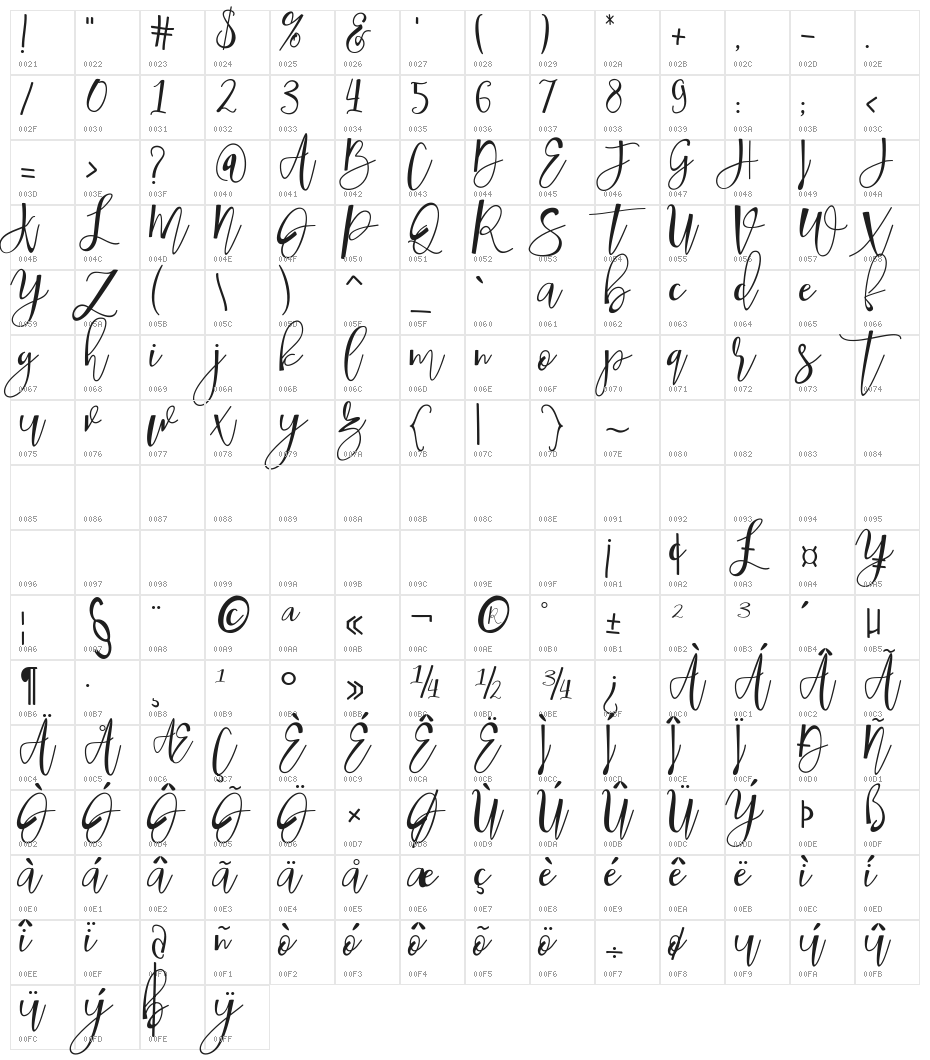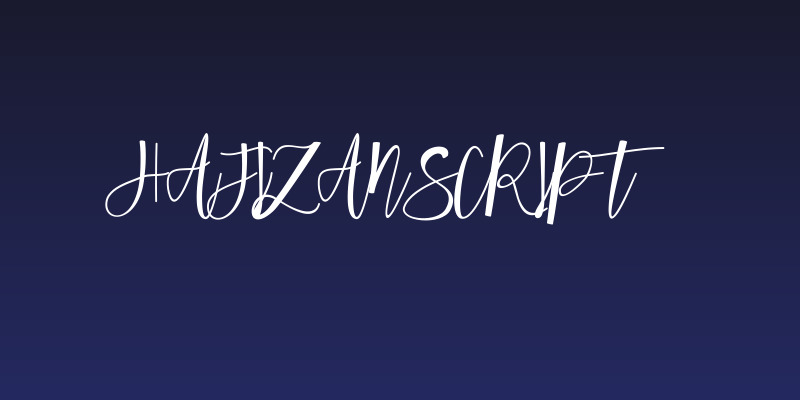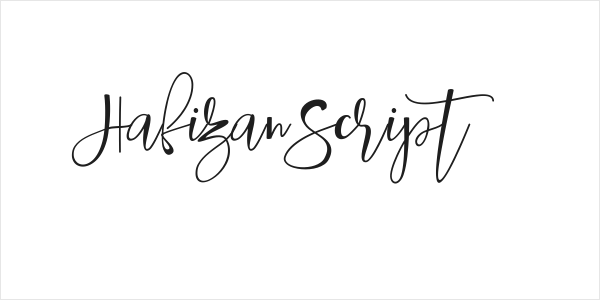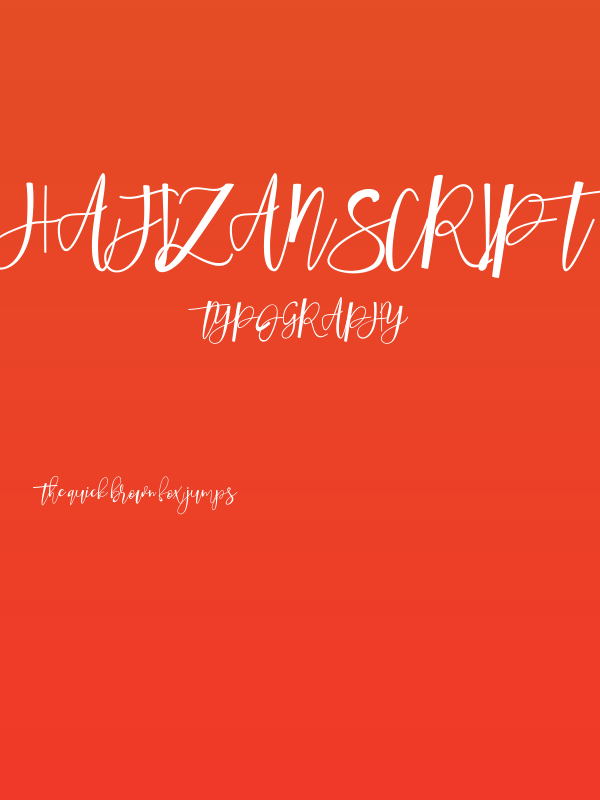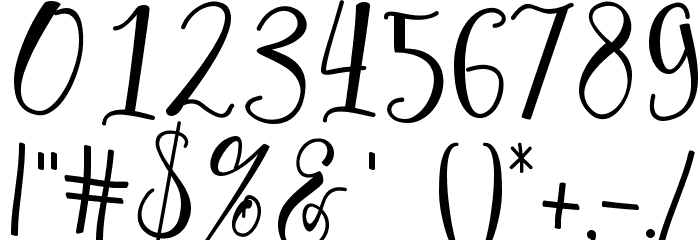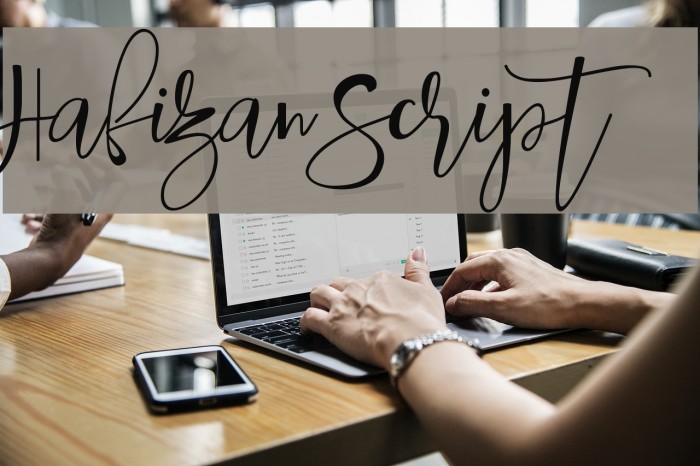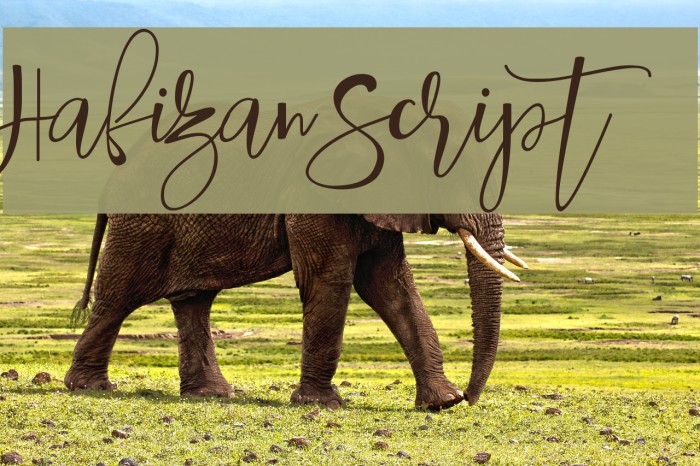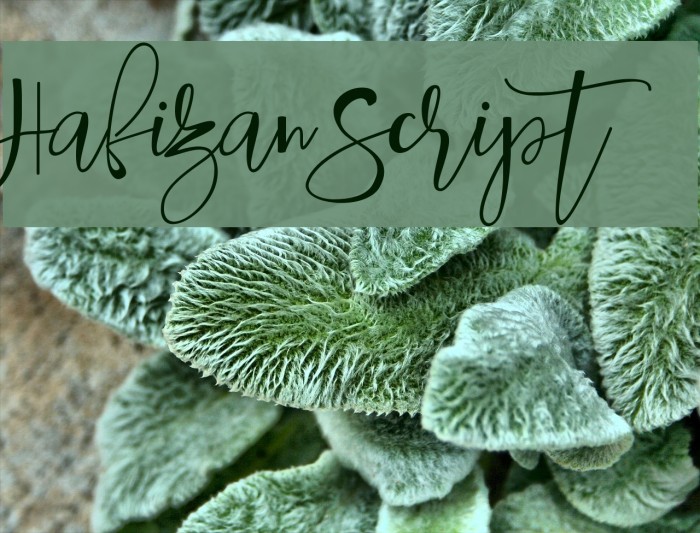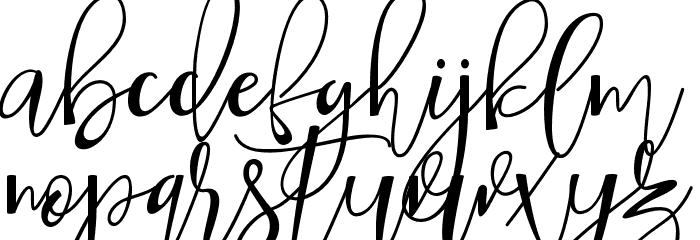
Hafizan Script Font
Hafizan Script Description
This script font features an elegant and flowing design, characterized by its smooth, cursive strokes and a handwritten aesthetic. The uppercase letters are tall and graceful, with loops and swirls that add a touch of sophistication. The lowercase letters maintain a consistent flow, creating a harmonious and connected appearance. Numbers and special characters are designed to complement the overall style, with similar curves and fluidity. This font exudes a sense of creativity and personal touch, making it ideal for projects that require a personal or artistic flair.
| Proposed Projects | Ideal for wedding invitations, greeting cards, personal branding, and artistic projects. |